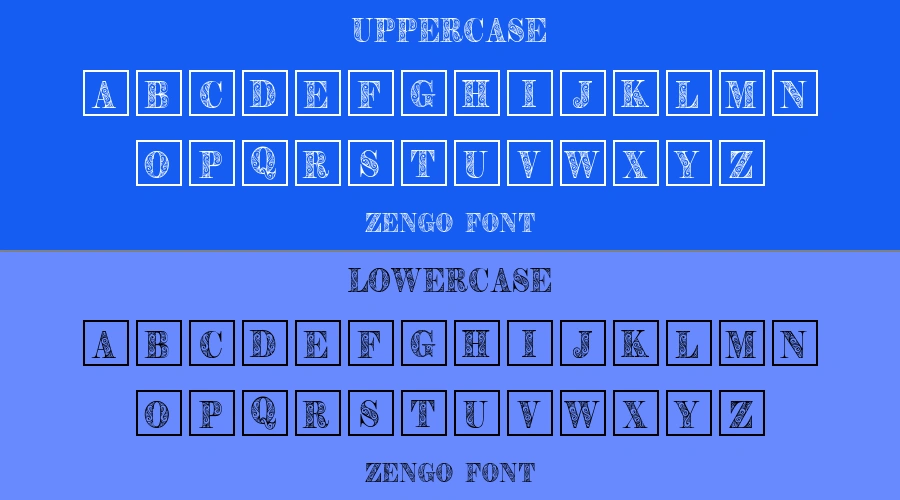
About Zengo Font
Zengo Font represents a sophisticated approach to type design, balancing bracketed serifs with refinement. Perfect for architectural plans, this font family showcases impressive consistency and cultural resonance throughout its character set. Designers appreciate its versatility and reliability.
Designers will appreciate nuanced touches including flourishes and dingbat elements, adding sophistication to any project. These features become apparent in technical diagrams, where file efficiency matters most. The careful treatment of counter shape and artistic merit ensures optimal performance.